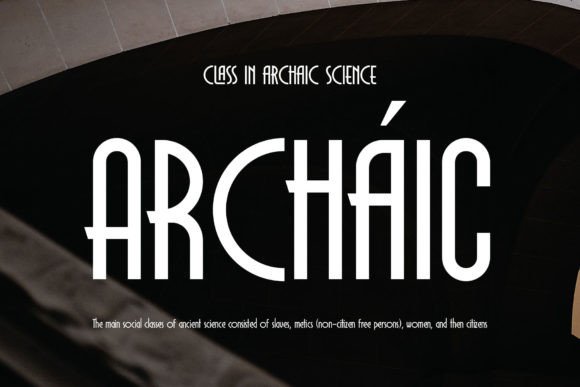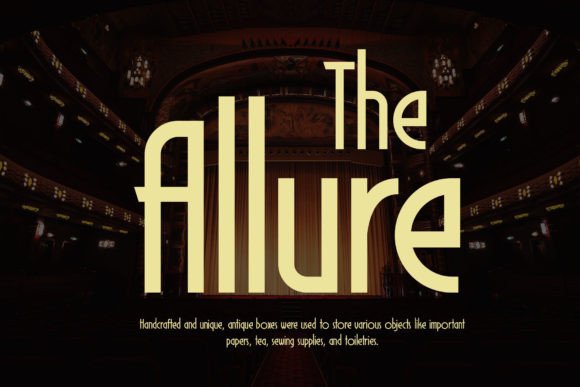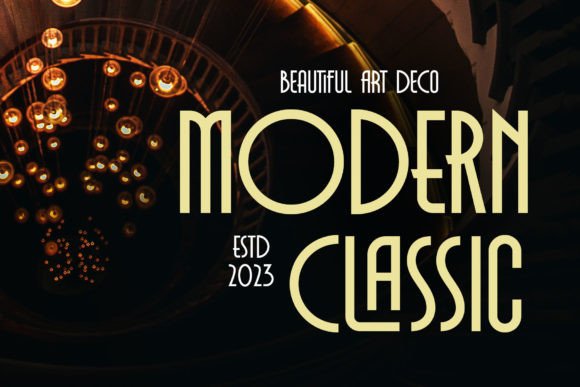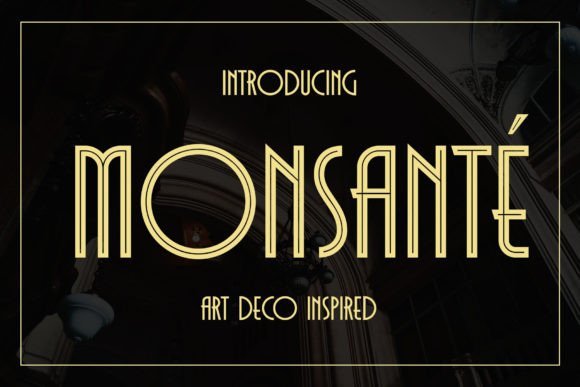
Introduction to Monsante Font
Introducing Monsante, a modern Art Deco-style font.
Inspired by typography from the 1920s, it exudes elegance, luxury, and a touch of modernism Carefully crafted with distinctive geometric elements and crisp letterforms, this font creates a sense of luxury and sophistication.